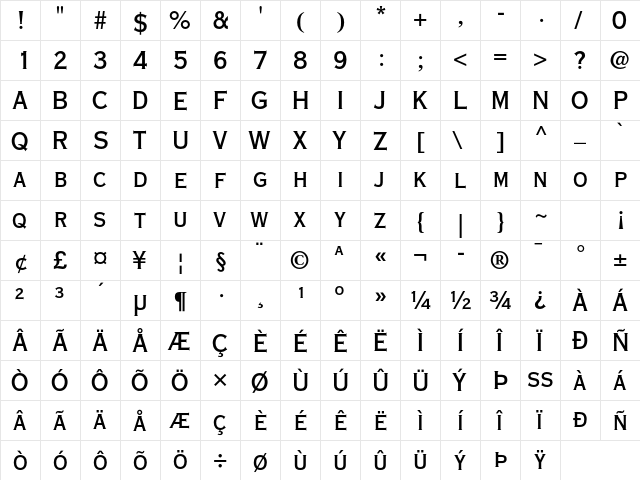
Copperplate Gothic Std 30 AB
| Designer | Frederic W. Goudy |
Design Context for Copperplate Gothic Std Typeface
Copperplate Gothic Std has the quiet confidence of well-executed sans-serif typography: versatile, unobtrusive, and dependable at any size.
Font Pairing: Works well alongside a characterful serif or display font that can carry the expressive load while Copperplate Gothic Std handles the functional copy.
Pro Tip: Use Copperplate Gothic Std for UI labels, navigation, and short-form body copy where clean legibility is the priority.